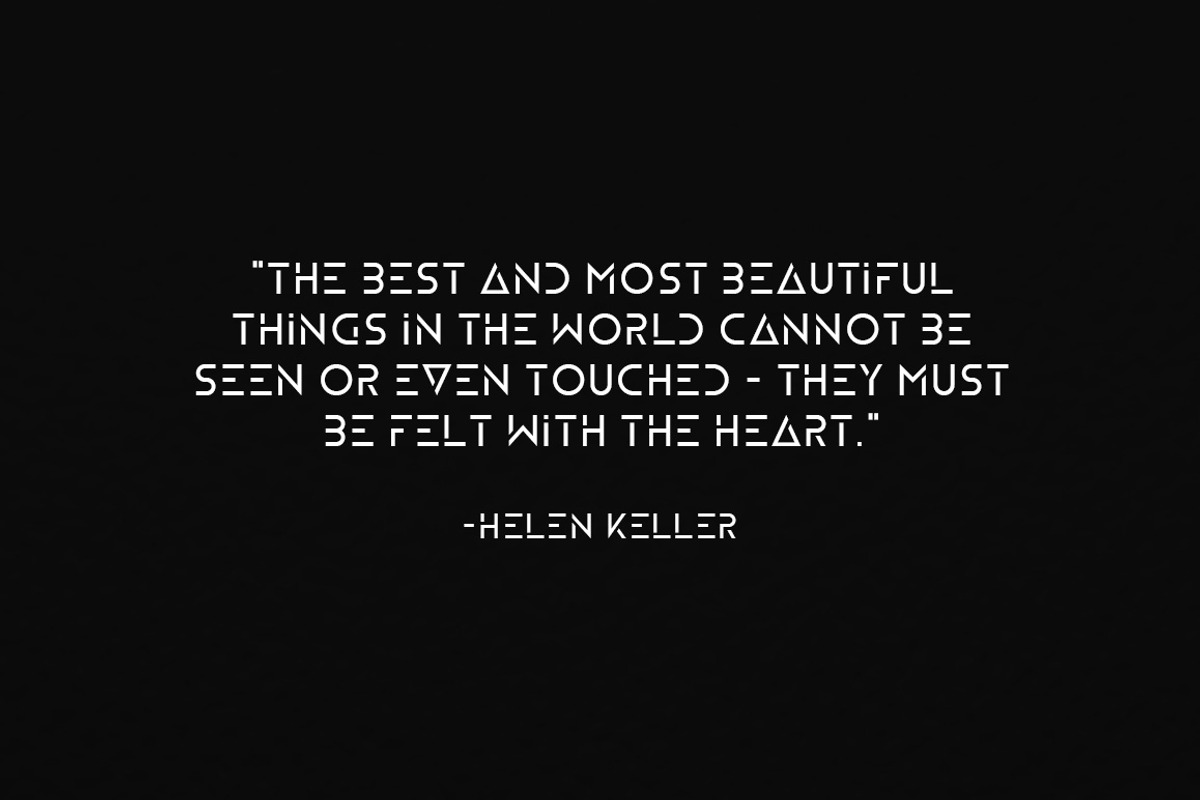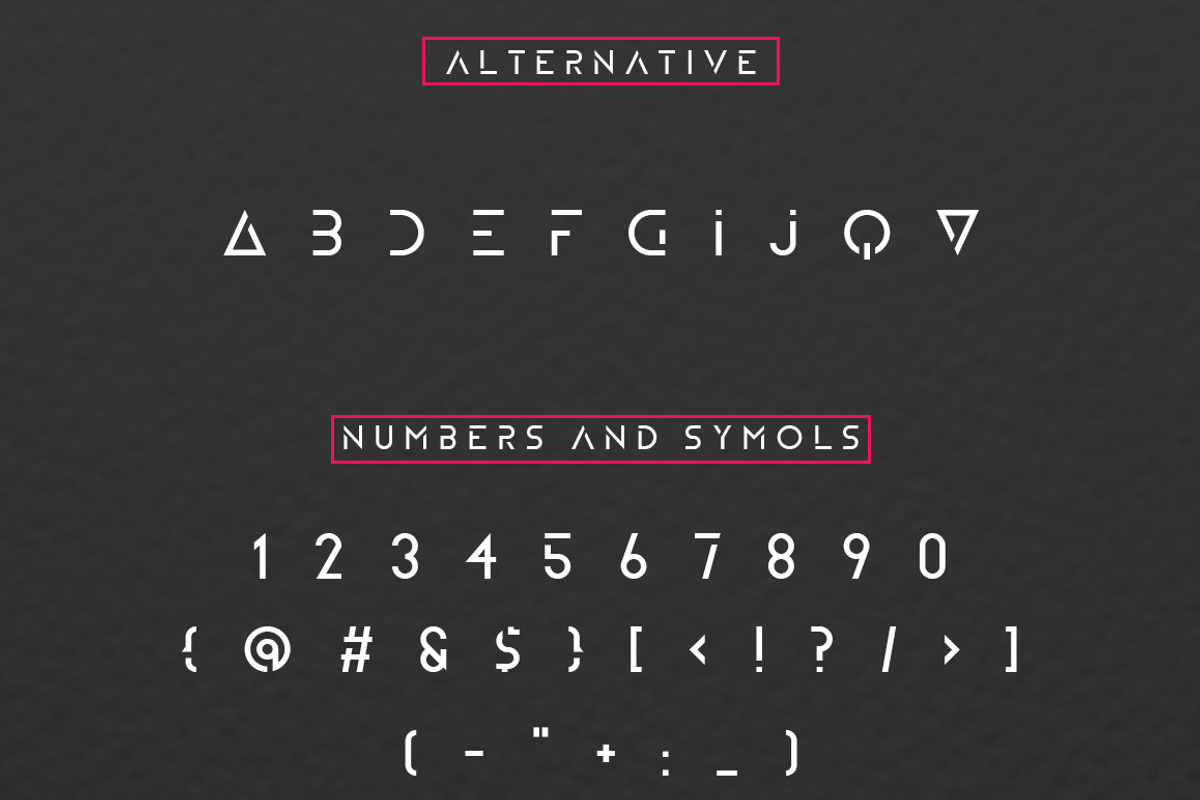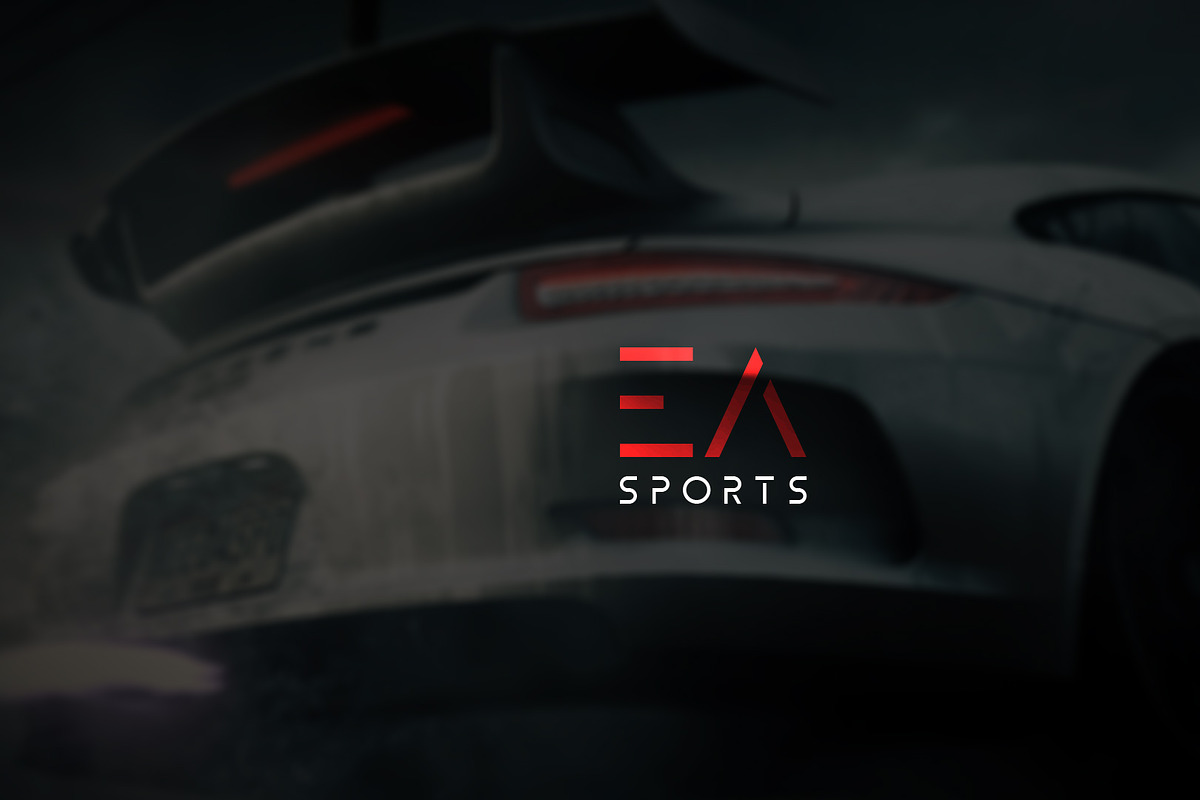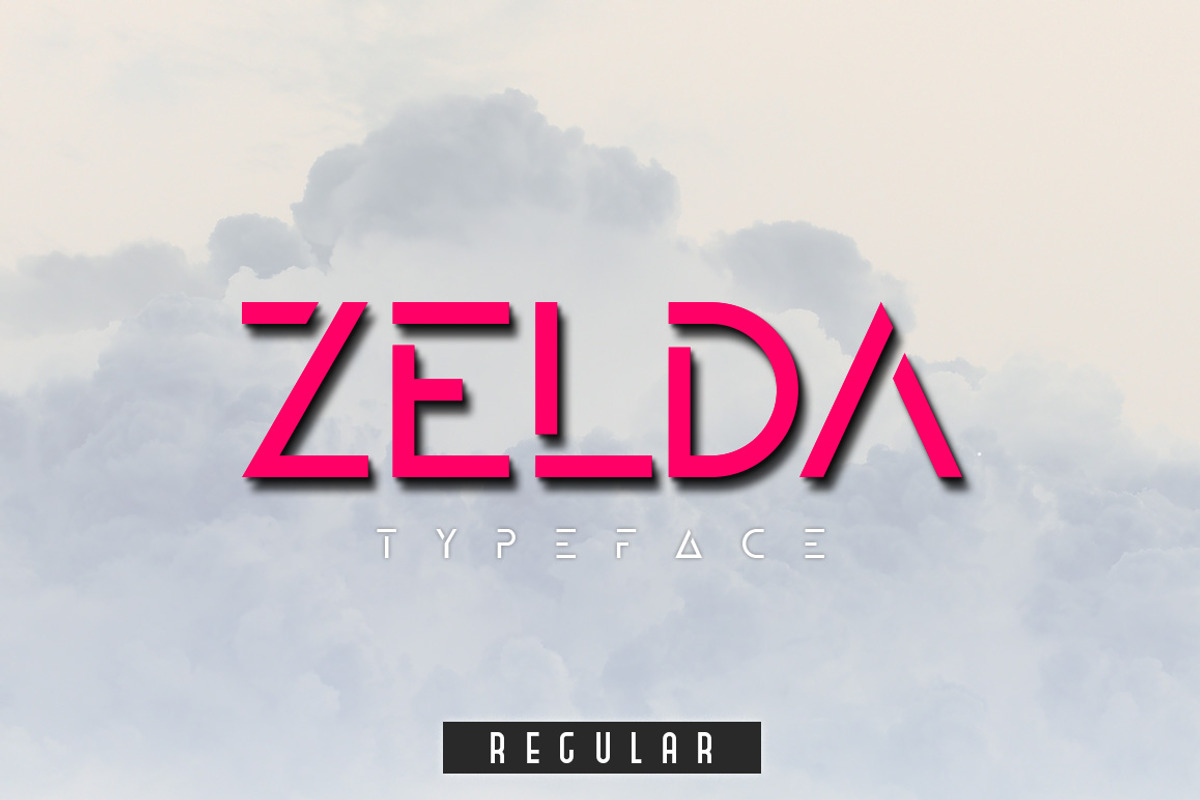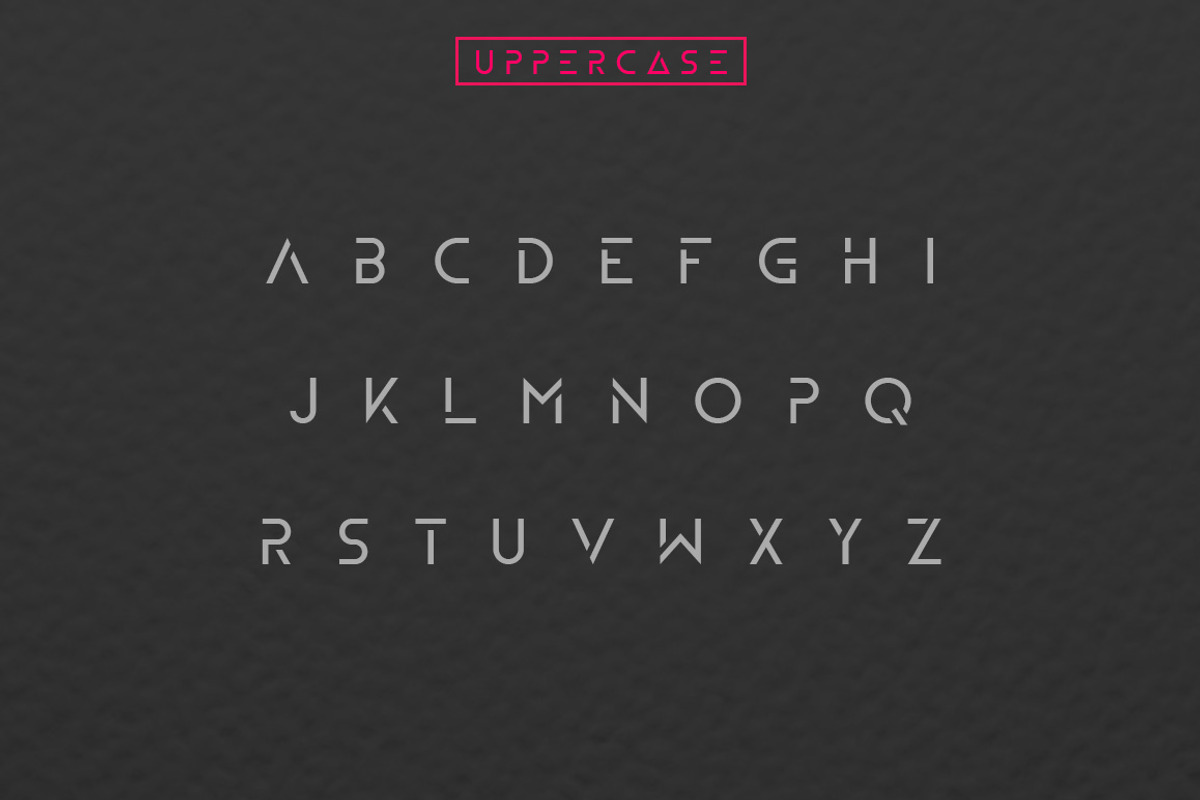
ZELDA typeface (REGULAR)
ZELDA typeface (REGULAR) by j3world is a font selected for branding, posters, packaging, typography.
Why ZELDA typeface (REGULAR) is worth a look
ZELDA typeface (REGULAR) by j3world fits naturally into Branding, posters, packaging, typography.